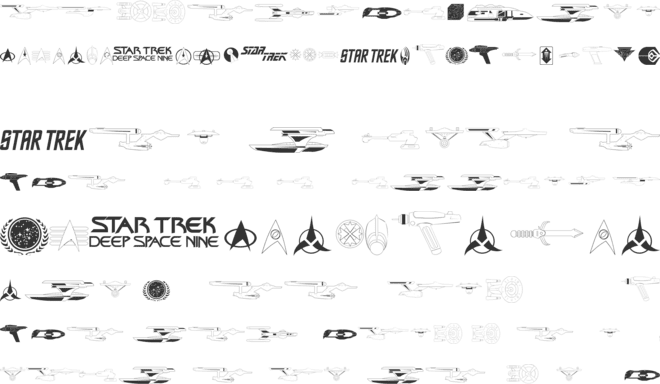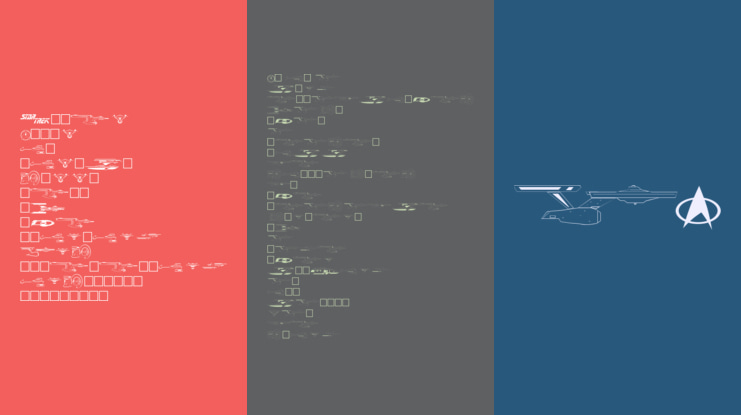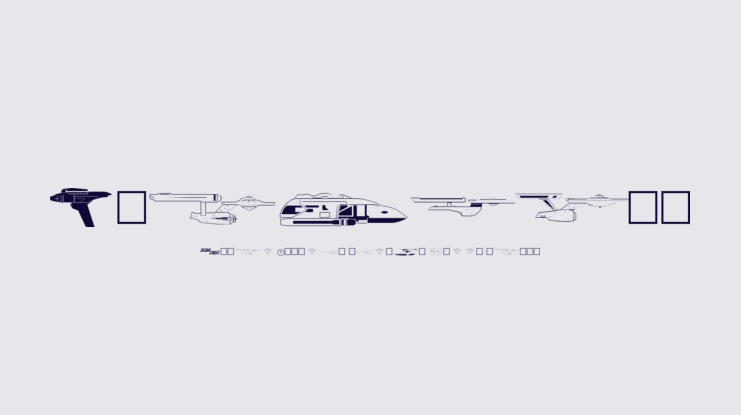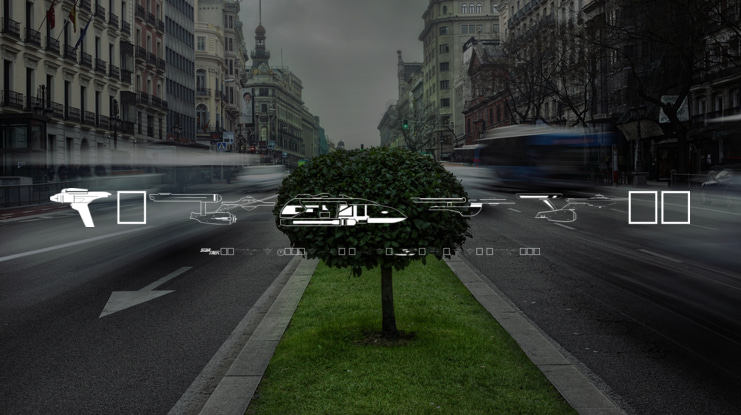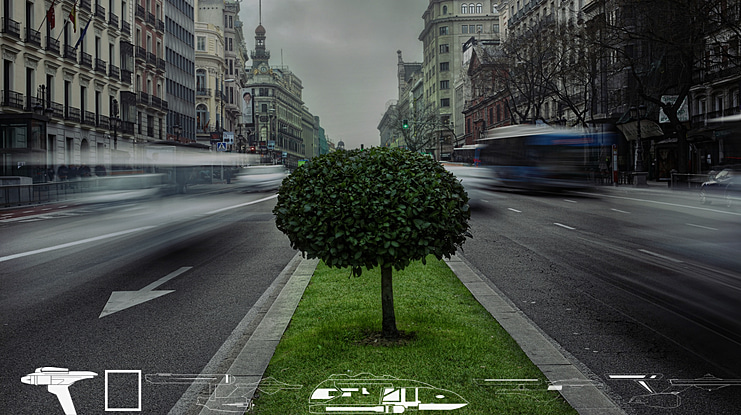
Finally, long overdue and bigger than I expected (sounds like a Microsoft
product!) is Trekbats, a font chock full o' Trek¨ logoes, diagrams,
graphics, emblems, etc. It's got it all, from the standard starfleet
communicator-type emblems, to Federation, Borg, Klingon¨, and Romulan¨
insignia, phaser pictures, a klingon¨ assault knife, and all the
enterprises (orig, A, B, C, and D). Runabouts, Klingon D-7's, Warbirds,
Reliants, Cubes, the whole nine yards.
This is a work in progress. There is no conceivable way for me to do
everything involving Star Trek© in this font's first version. There're
probably emblems and such that I don't know about or that haven't been